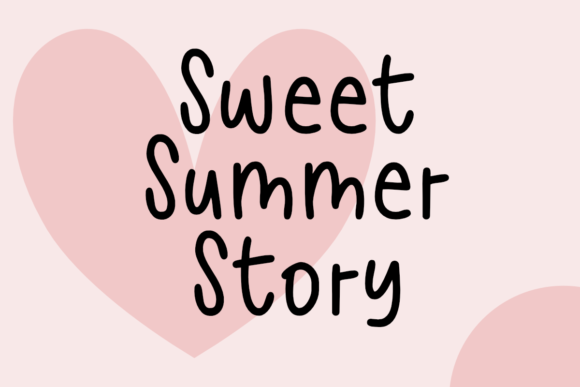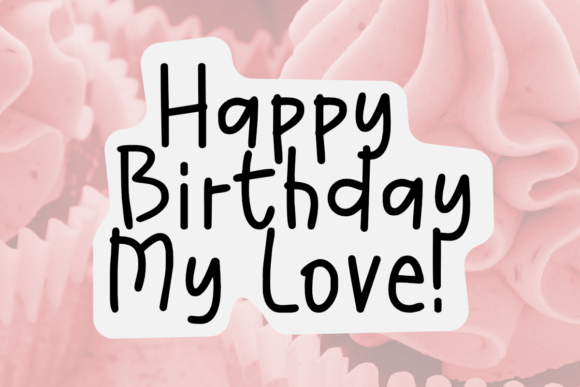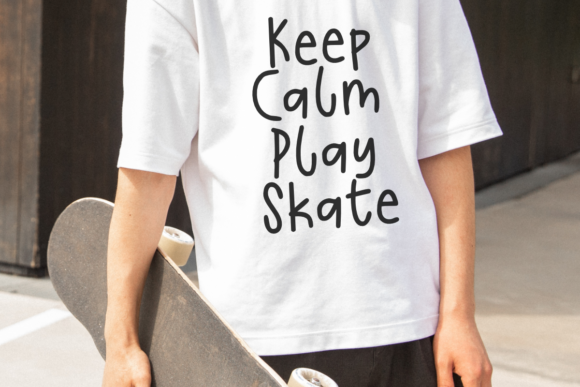
The Perfect Blend of Casual Elegance
Remember that moment when you’re brainstorming a new project, and you finally find the perfect combination of colors, textures, and typography? It’s like hitting the jackpot, and everything falls into place. For designers, this moment is often the result of selecting the right font. And, trust us, you’re in luck if you’re about to discover the California Butter Font.
This quirky handwritten font is designed to bring a relaxed touch to your creations. Its informal style is perfect for projects that need a casual vibe, from social media graphics to event invitations. The California Butter Font is more than just a pretty face – it’s a versatile tool that can adapt to any design style.
California Butter Font Key Features
- Font Family: California Butter Font is a sans-serif font family designed to evoke the feeling of California’s sun-kissed landscape.
- Unique Characteristic: California Butter Font features a unique, hand-drawn feel with subtle irregularities and texture, giving it a distinctive personality.
California Butter Font Review
I recently had the chance to work with the California Butter Font, and I have to say, it’s a unique and interesting choice. ✨ One thing that works well is its friendly, approachable vibe – it’s perfect for projects that need a relaxed, West Coast feel. The font also has a great range of weights and styles, making it versatile and easy to use.
- ✨ Great for projects with a laid-back, California-inspired aesthetic
- ✨ Wide range of weights and styles for flexibility
- ✨ Friendly, approachable feel that’s perfect for certain types of content
However, I did encounter a few limitations. ⚠️ The font can feel a bit too casual for certain projects, and the bold weights can be a bit too chunky. Additionally, the font’s rounded edges can make it difficult to read in certain contexts.
- ⚠️ Can feel too casual for formal or professional projects
- ⚠️ Bold weights can be too chunky in some cases
- ⚠️ Rounded edges can make it difficult to read in certain contexts
Overall, I’d say the California Butter Font is a solid choice for projects that need a relaxed, California-inspired feel. However, it may not be the best choice for more formal or professional projects.
California Butter Font is ideal for creative and artistic projects, such as:
- Food blogs and recipe websites
- Brand logos and identity design